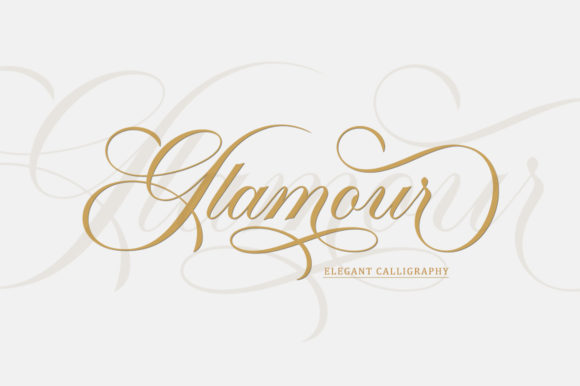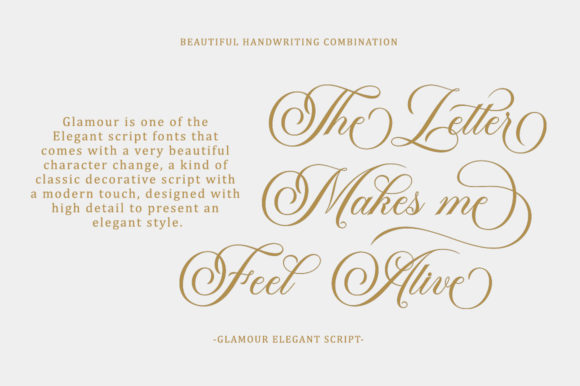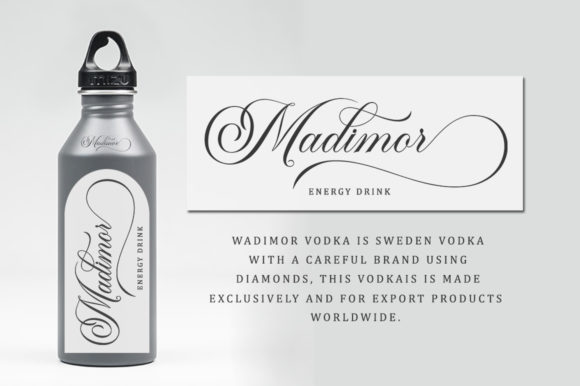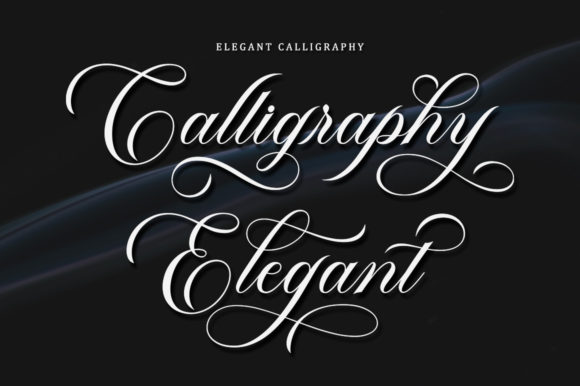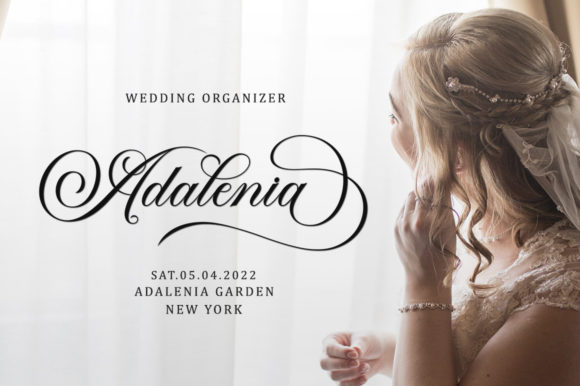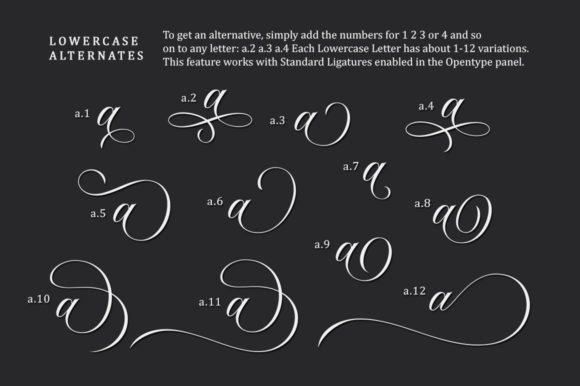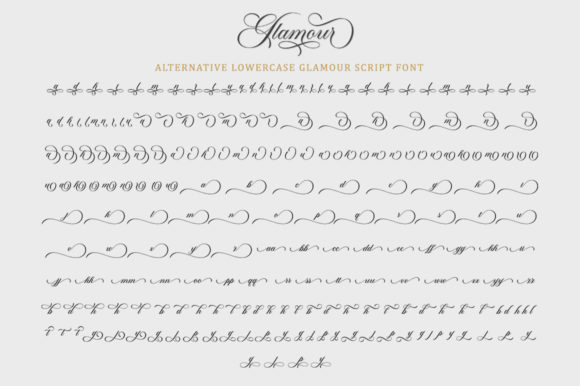
Glamour Font
Glamour is a distinct and fashionable script font. It will add a luxury spark to any design project that you wish to create! This font is PUA encoded which means you can access all of the amazing glyphs and ligatures with ease!